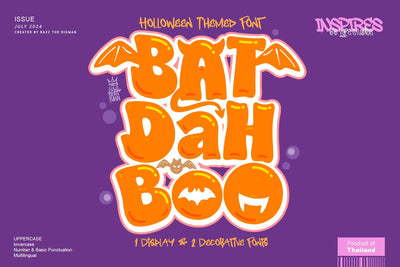
Bat Dah Boo
Introducing Bat Dah Boo - a playful, Halloween-inspired display and decorative font. Crafted with a sense of whimsical delight, Bat Dah Boo infuses an irresistibly joyful spark into your design work. In every creative concept, let Bat Dah Boo take center stage to truly elevate it - let your ideas shine with a unique standout quality that only this charmingly festive font can deliver.
1. Bat Dah Boo I
2. Bat Dah Boo II
3. Bat Dah Boo III